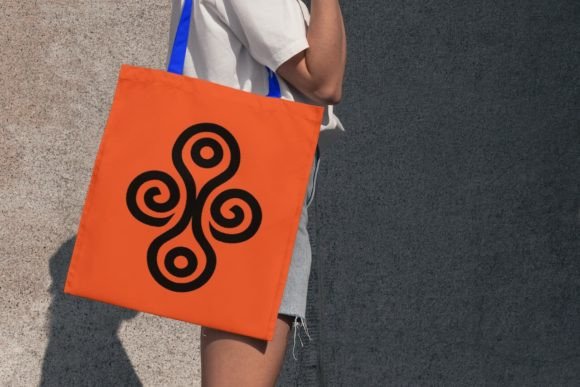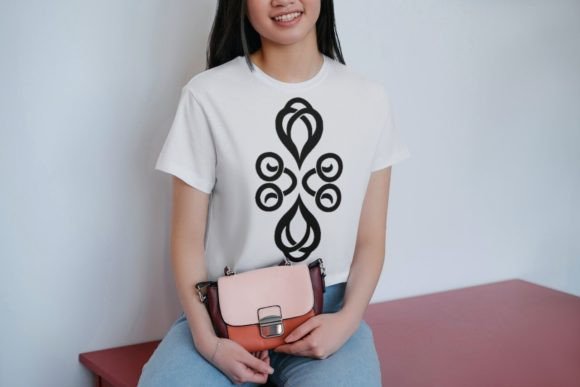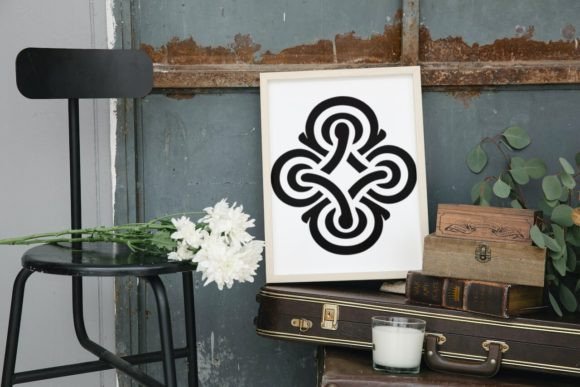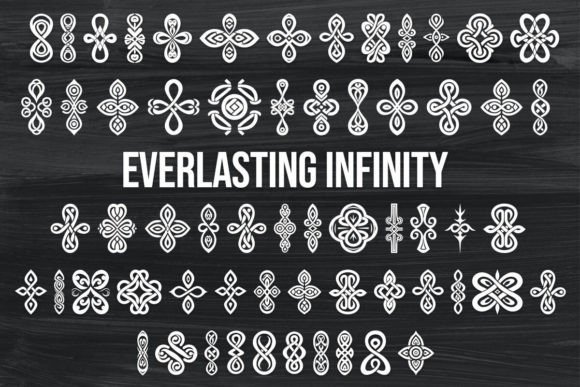
Introducing Everlasting Infinity Dingbats Fonts – Your Infinite Creative Toolkit!
Are you tired of using the same old fonts for your designs? Do you want to add a touch of uniqueness and creativity to your work? Look no further than the Everlasting Infinity Dingbats Fonts! This limitless font collection is perfect for designers, crafters, and anyone looking to make their designs truly one-of-a-kind.
What are Dingbats Fonts?
Dingbats fonts, also known as symbol fonts or clip-art fonts, are a type of font that consists of images or symbols rather than letters. They are often used to add visual interest and personality to designs, and can be used to create a wide range of effects, from simple icons to intricate illustrations.
The Benefits of Everlasting Infinity Dingbats Fonts
The Everlasting Infinity Dingbats Fonts collection offers a wide range of benefits for designers and crafters. Here are just a few:
- Limitless creativity: With the Everlasting Infinity Dingbats Fonts collection, you’ll have access to an almost endless supply of unique and creative symbols and images to use in your designs.
- Perfect for logos and branding: The fonts in this collection are perfect for creating custom logos and branding materials that will help your business stand out from the crowd.
- Great for posters and flyers: The Everlasting Infinity Dingbats Fonts collection is also ideal for creating eye-catching posters and flyers that will grab attention and communicate your message effectively.
- Easily customizable: The fonts in this collection are easily customizable, allowing you to adjust the size, color, and style to fit your design needs.
What You’ll Get with Everlasting Infinity Dingbats Fonts
How to Use Everlasting Infinity Dingbats Fonts
Using the Everlasting Infinity Dingbats Fonts collection is easy! Here are a few tips to get you started:
- Experiment with different fonts: With so many unique fonts to choose from, don’t be afraid to try out different options and see what works best for your design.
- Mix and match: Combine different fonts and symbols to create unique and interesting effects.
- Customize to fit your brand: Adjust the size, color, and style of the fonts to fit your brand and design aesthetic.
Why Choose Everlasting Infinity Dingbats Fonts?
So why should you choose the Everlasting Infinity Dingbats Fonts collection? Here are just a few reasons:
- Unique and creative designs: The fonts in this collection are truly one-of-a-kind, and will help your designs stand out from the crowd.
The Everlasting Infinity Dingbats Fonts collection is a must-have for any designer or crafter looking to add a touch of creativity and uniqueness to their work. With its limitless supply of unique and creative symbols and images, this font collection is perfect for logos, posters, and more. So why wait? Get Everlasting Infinity Dingbats Fonts today and start making your designs truly one-of-a-kind!